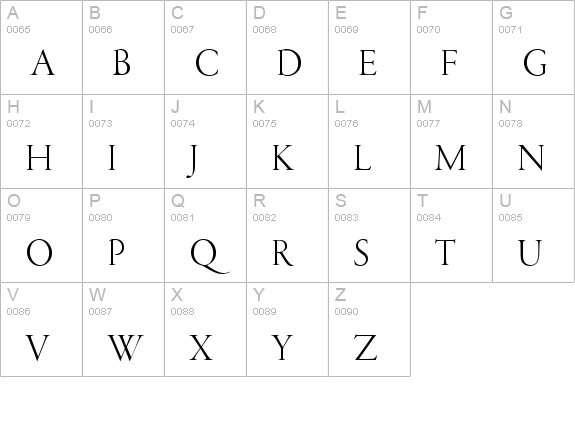
Garamond Premier Pro Light Display Font Details
Garamond Premier Pro Light Display is a refined, elegant variant in the Garamond typeface family \xE2\x80\x94 well suited to elegant body text, refined sub-headings, and luxury branding.
Garamond Premier Pro Light Display font is a refined and elegant typeface that exudes sophistication and classic charm. Its delicate serifs and graceful curves make it perfect for creating stunning headlines and titles that capture attention with their timeless beauty. The light weight of the font gives it a subtle and airy quality, making it ideal for designs that require a touch of subtlety and finesse. This exquisite font is not only visually appealing but also highly versatile, suitable for a wide range of design projects from branding and advertising to editorial and packaging. With its impeccable legibility and stylish flair, Garamond Premier Pro Light Display font is sure to elevate any design to a new level of sophistication and refinement. Best of all, this stunning font is available for free download at FontsMarket.com, where you can easily access and use it in your projects without any cost. Don't miss out on the opportunity to add this beautiful typeface to your design arsenal and create captivating visuals that leave a lasting impression.